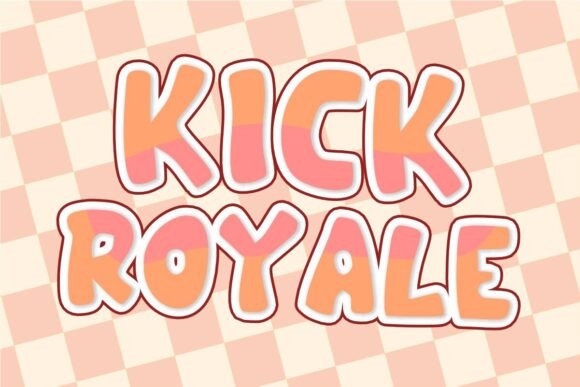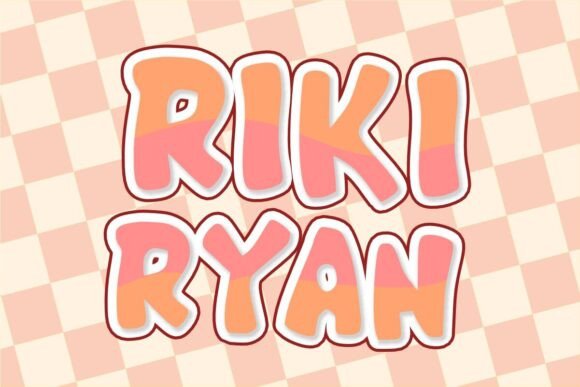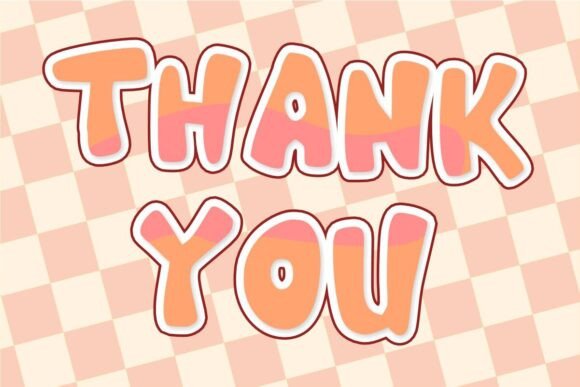
Unlock Your Creativity with Kick Vibes Font
Have you ever stared at a blank page, struggling to find the perfect font to bring your design to life? The blank page stares back, taunting you with its emptiness. It’s in these moments that we search for that elusive spark – a font that can convey the emotions and essence of our creative vision.
Enter Kick Vibes Font, a game-changing typeface that’s taking the design world by storm. This innovative font is perfect for adding an extra layer of personality to your designs, whether you’re creating posters, stickers, comics, or children’s books. With its unique, shapeless style, Kick Vibes Font is the ultimate tool for designers who want to make a statement and leave a lasting impression.
By incorporating Kick Vibes Font into your designs, you’ll be able to tap into its infectious energy and convey a sense of playfulness, creativity, and fun. It’s a valuable addition to any designer’s toolkit, and one that’s sure to kick-start your next creative project.
Kick Vibes Font Key Features
- Unique Characteristics: The Kick Vibes Font features a unique blend of modern and vintage elements, with bold lines and geometric shapes, making it perfect for creating eye-catching designs.
Kick Vibes Font Review
Overall, I’d say Kick Vibes Font has some great qualities that make it suitable for specific projects. ✨ The font’s energetic and playful feel makes it perfect for designs that require a youthful vibe, like social media graphics, sports branding, or music-related materials. The font’s customizability is also a plus, with several weights and styles to choose from, which can help you achieve the desired look.
- ✨ Customizable weights and styles
- ✨ Perfect for youthful, energetic designs
- ✨ Great for sports, music, or social media branding
However, there are some limitations to consider. ⚠️ The font’s readability can be a bit of an issue, especially at smaller font sizes. Additionally, the font’s irregularities and quirks might not be suitable for more formal or professional designs. It’s also worth noting that the font’s usage might be limited to specific niches, which might not be ideal for projects that require a more universal appeal.
- ⚠️ Readability issues at smaller font sizes
- ⚠️ Irregularities and quirks might not be suitable for formal designs
- ⚠️ Limited usage in specific niches
Overall, I’d say Kick Vibes Font is a solid choice for projects that require a fun, energetic feel. While it has its limitations, the font’s unique qualities make it a great option for designers who want to add some personality to their work.